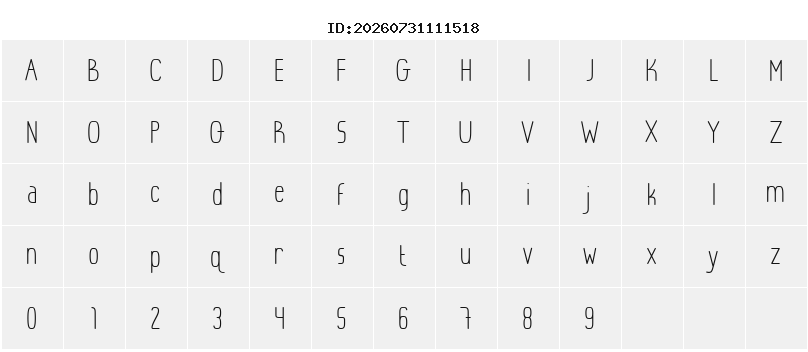
Lightly Awkward Preview
• Font Name: Lightly Awkward
• Manufacturer: Loren Miqual Holloway
About Lightly Awkward.ttf
Lightly Awkward.ttf is a modern, elegant sans-serif font designed for ultimate readability and visual harmony. Perfect for branding, headlines, web design, and print materials.